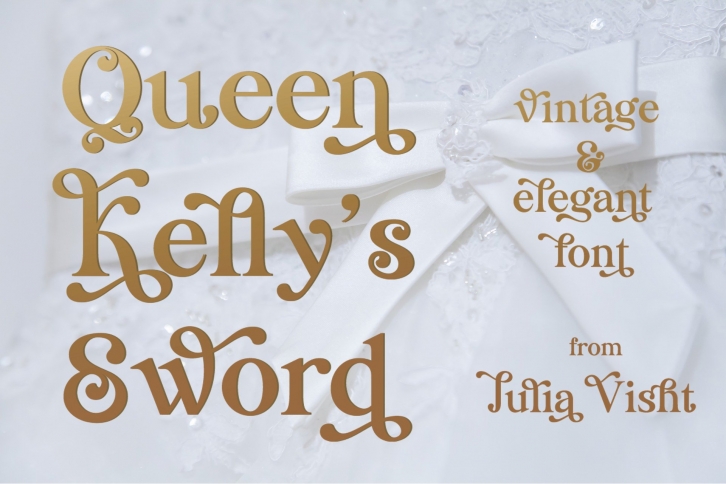
Queen Kellys Sword is a gorgeous font that was realeased on June 6, 2022. The font can be used in many style contexts and design environments. Perfect for invitations, magazines, websites, logos, and more! It was designed by Julia Visht and the file size is 18.3 MB. Thanks for checking out this font!